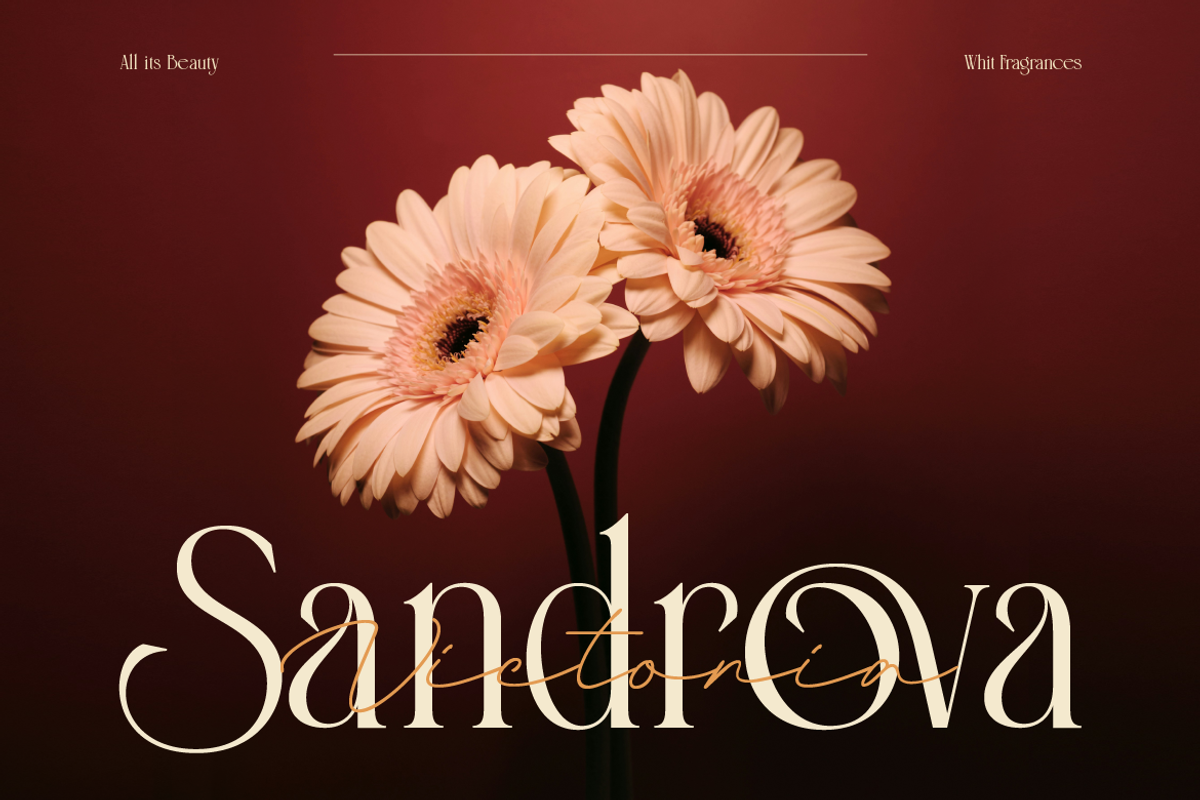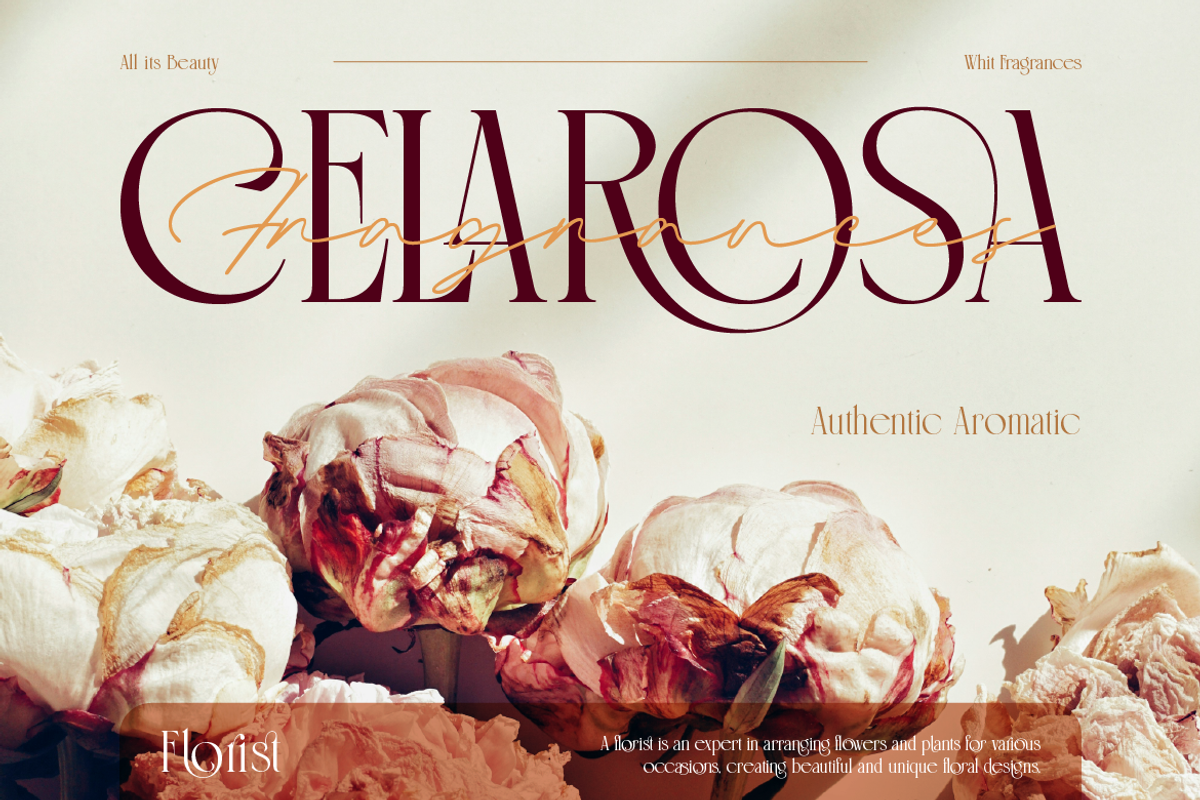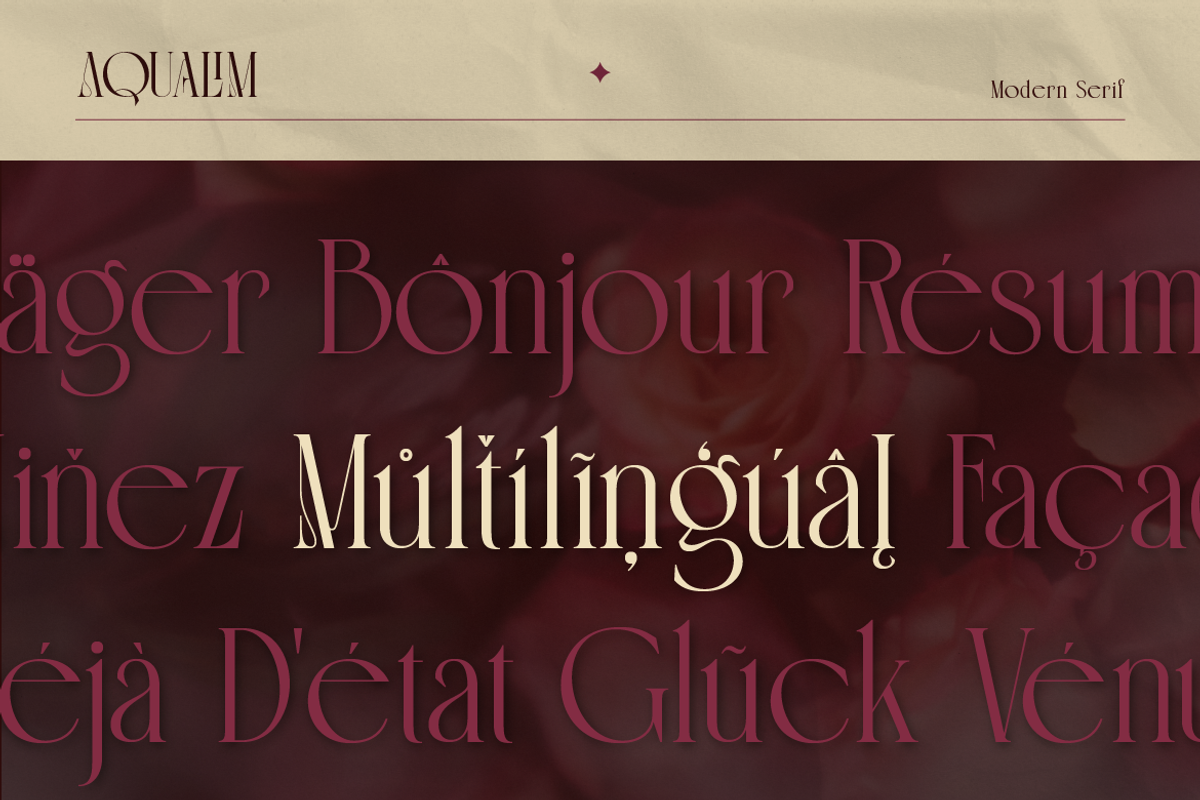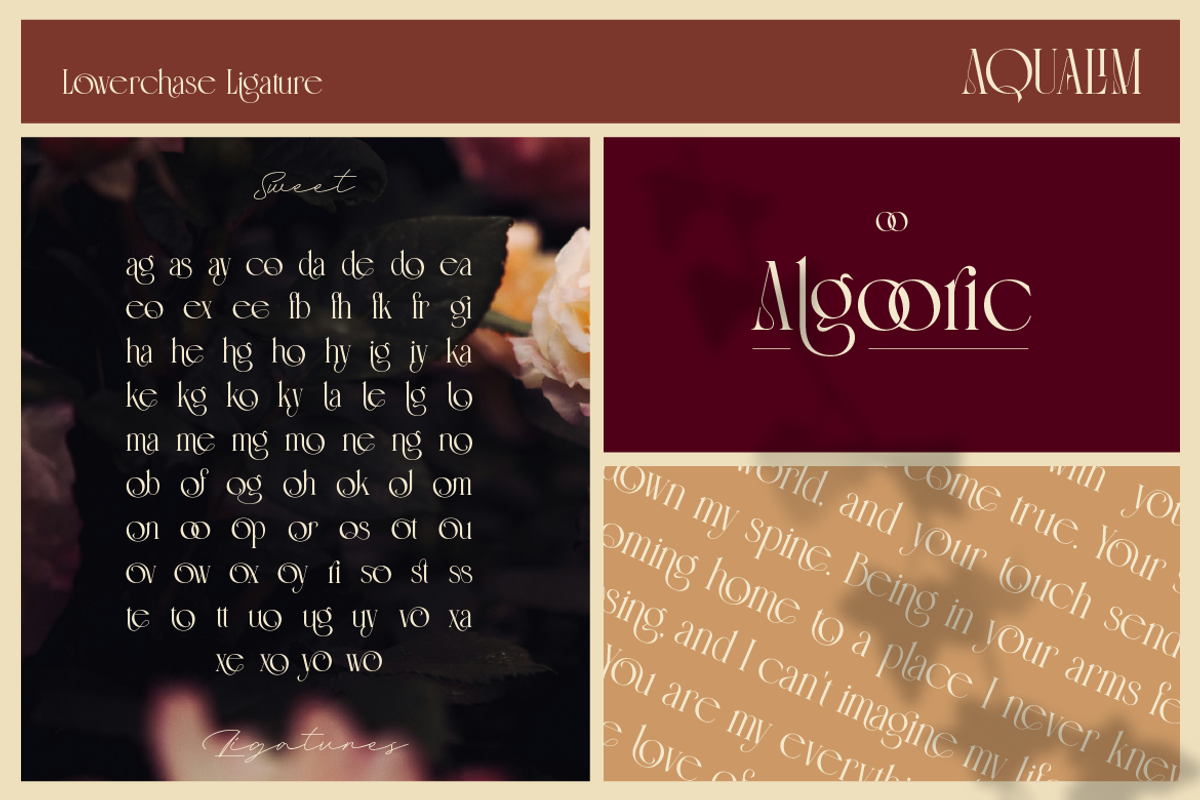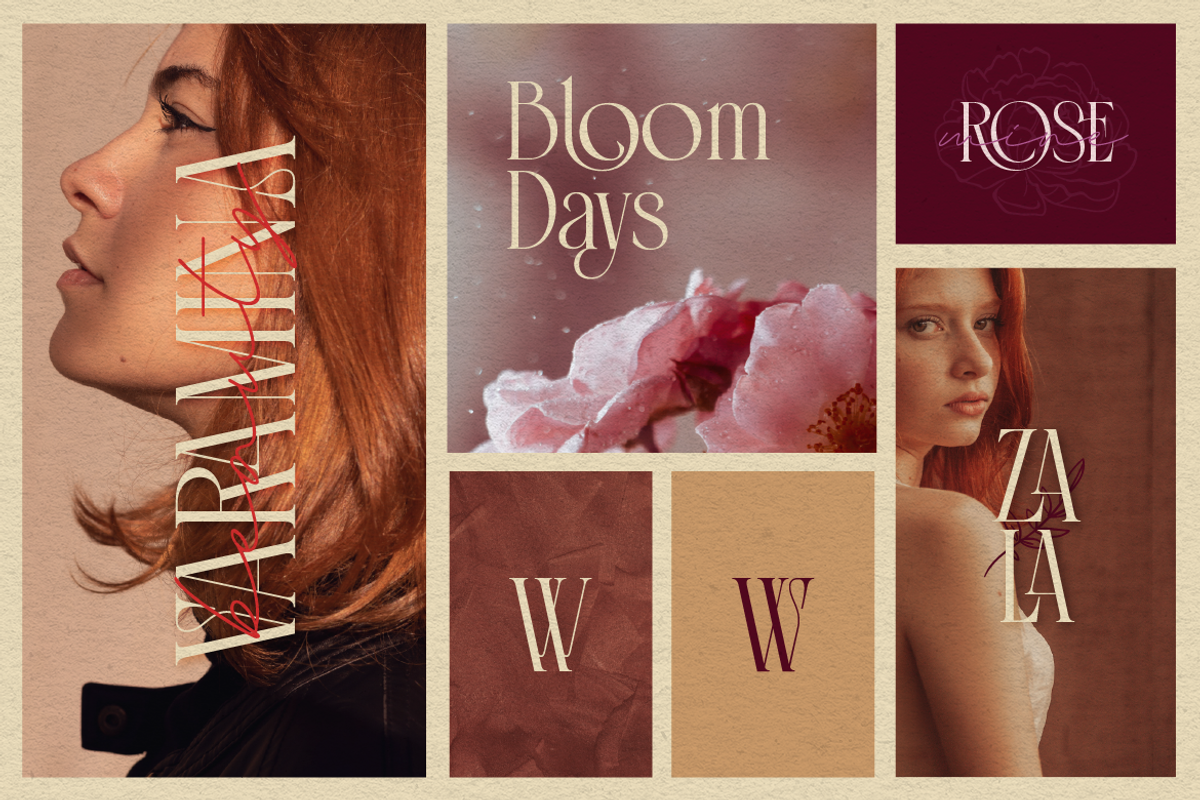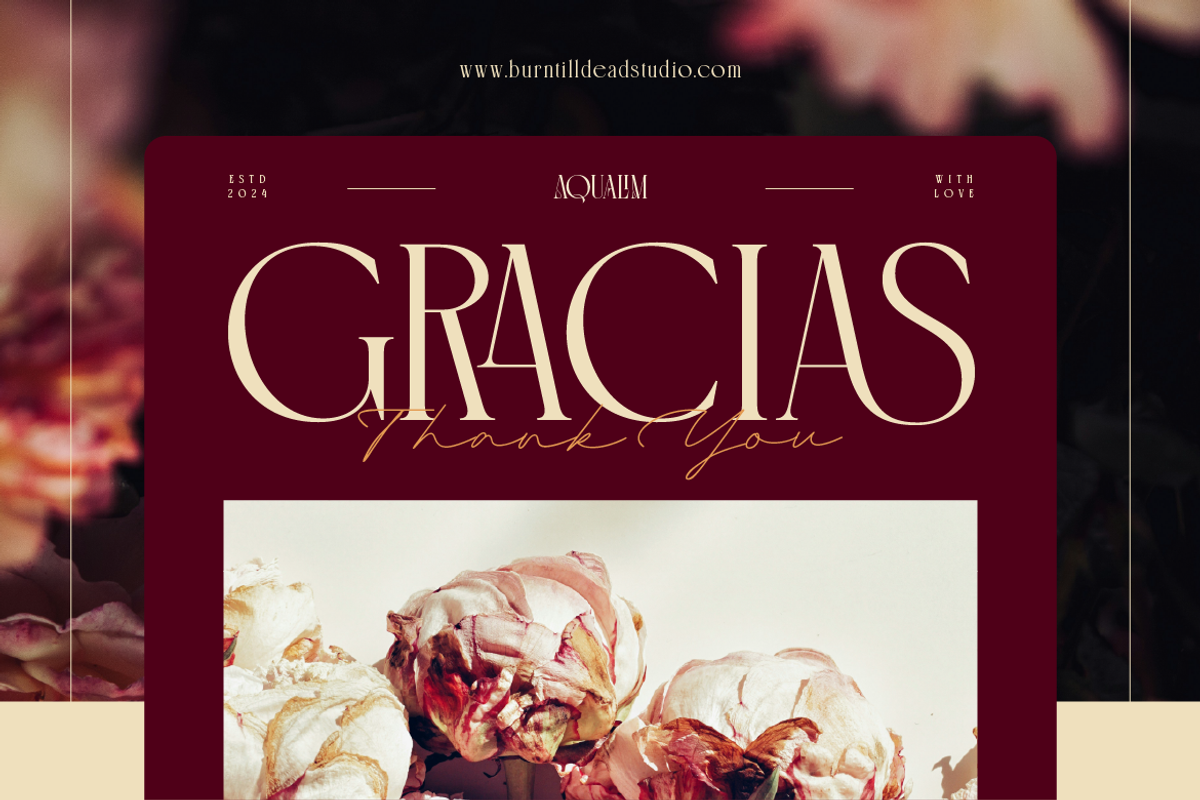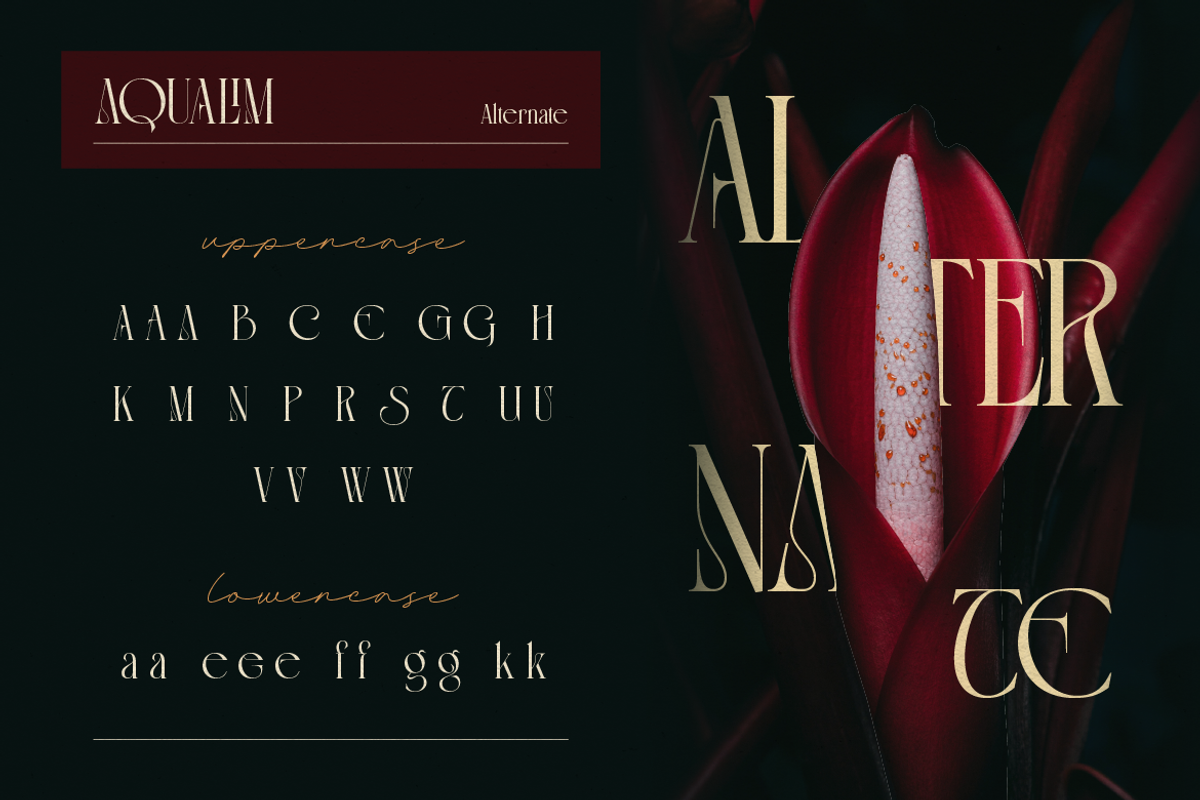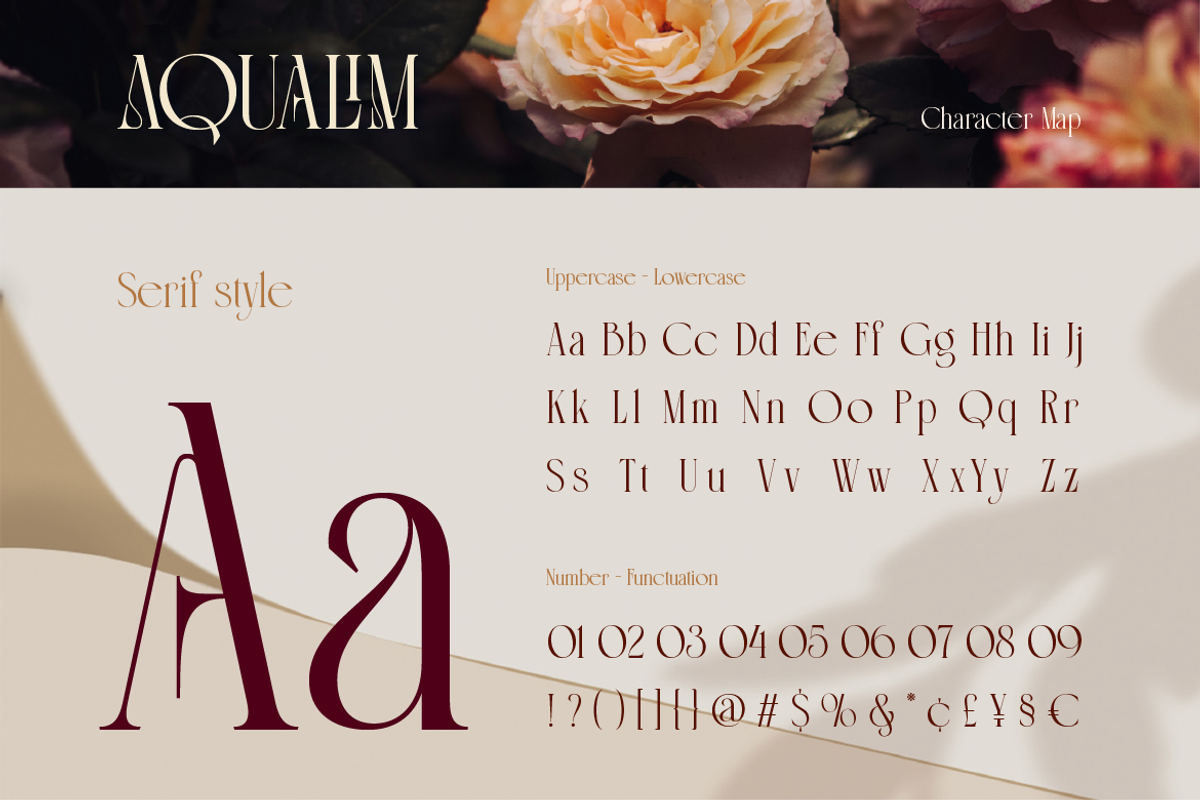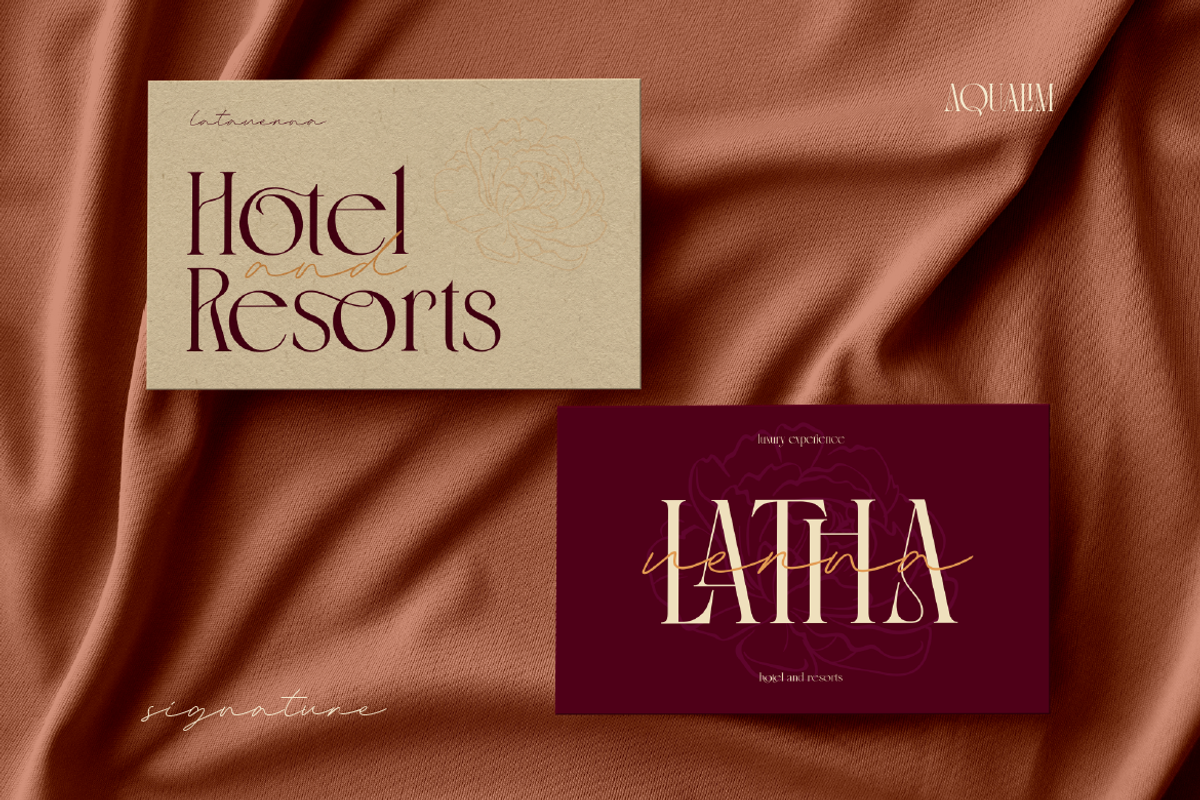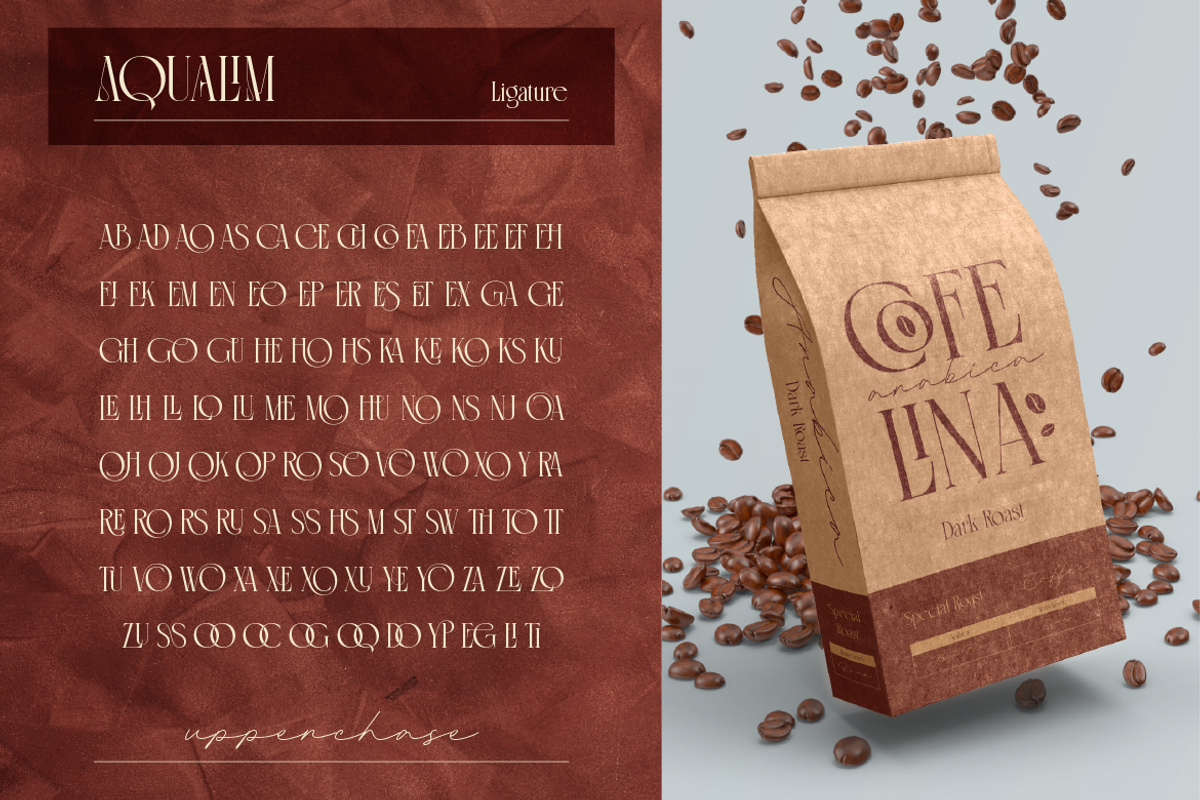
Aqualim Signature - Duo Font
Aqualim Signature, when classic of serif meets the elegance of script. This duo font bring the aesthetic of classy and luxury look so its perfectly suit for headline, logo, covers, posters, quotes, magazine, wedding invitation, product packaging, merchandise, social media, marketing materials and many more!
Aqualim Signature A-Z set (uppercase & lowercase)
Numerals
Alternate
Ligature